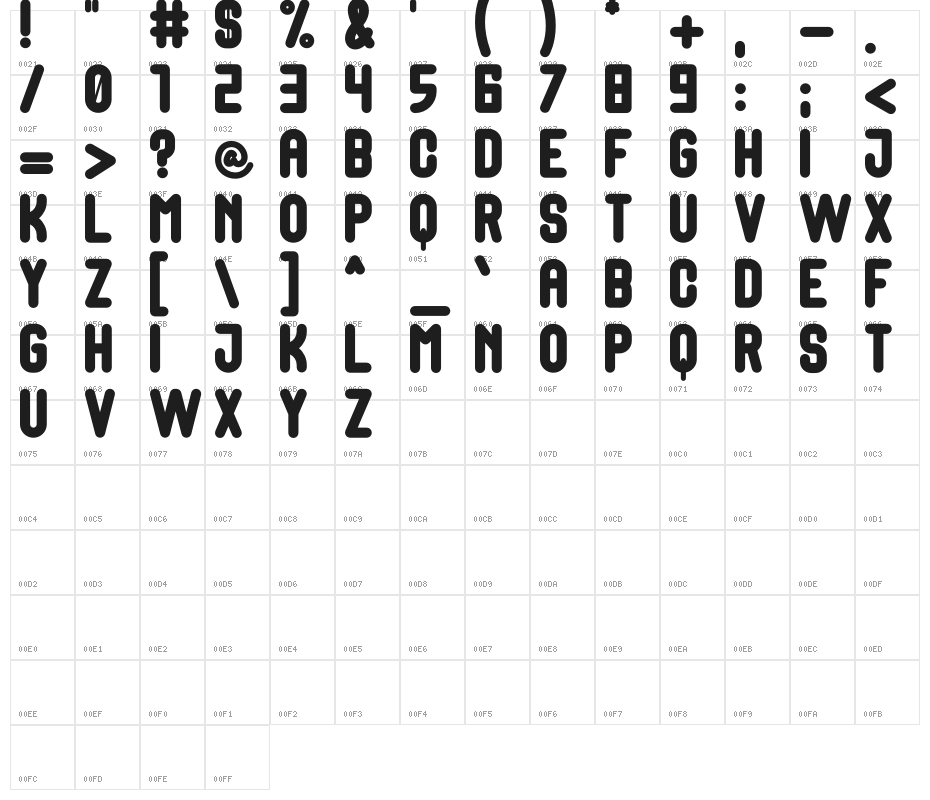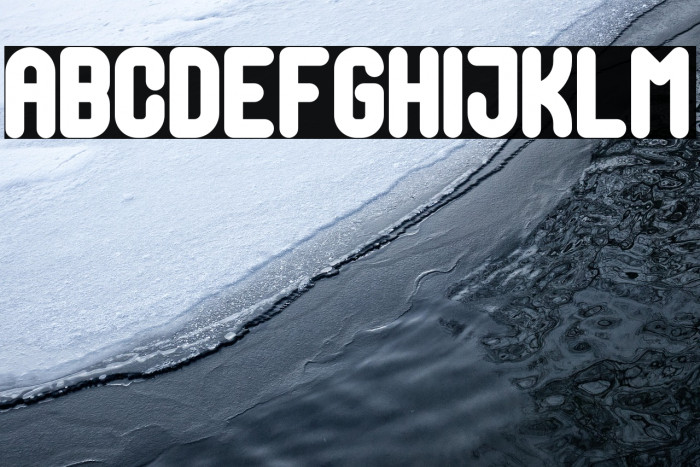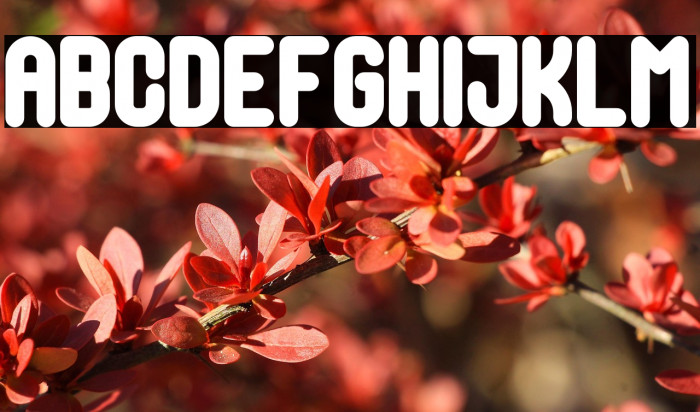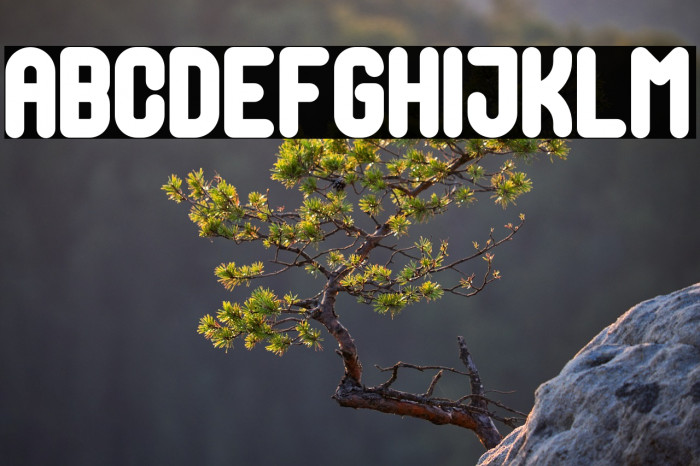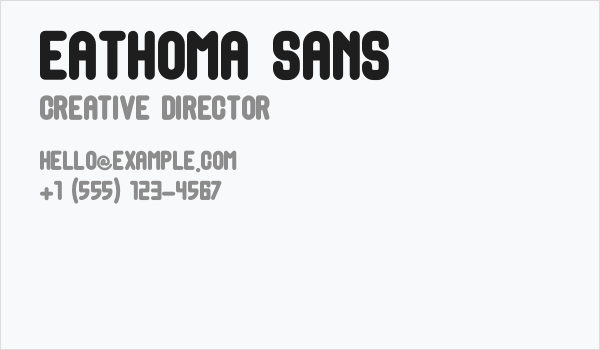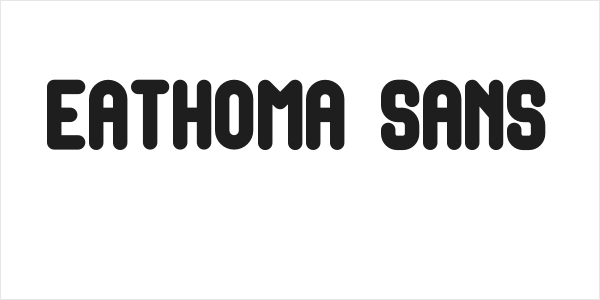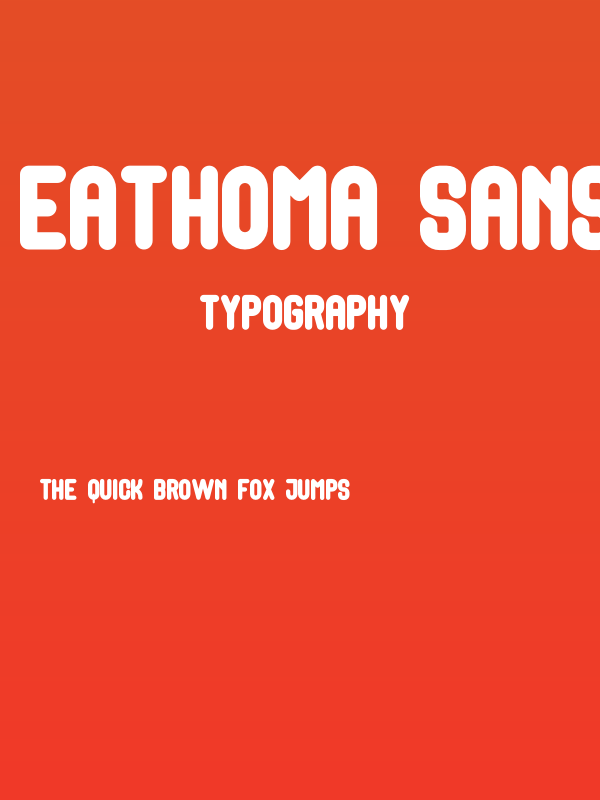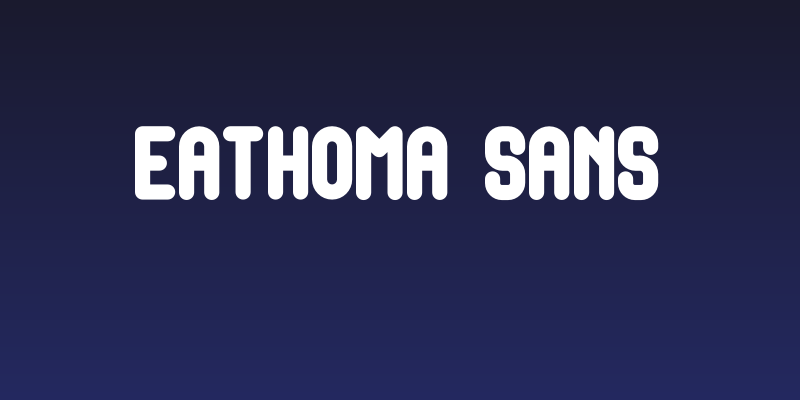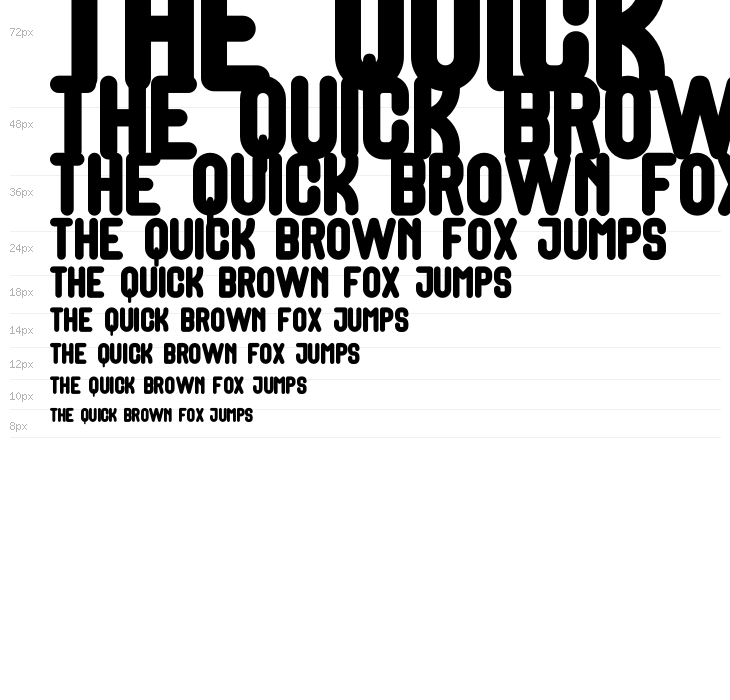
Eathoma Sans Font
Eathoma Sans Description
This font features a bold and rounded sans-serif style, characterized by its thick, uniform strokes and smooth curves. The letters are evenly spaced, providing a clean and modern appearance. The uppercase and lowercase letters maintain a consistent height, contributing to a cohesive look. The numerals are similarly bold, ensuring readability and impact. Special characters are designed with the same rounded edges, enhancing the overall aesthetic. This font is ideal for projects that require a strong visual presence, such as branding, advertising, and headlines.